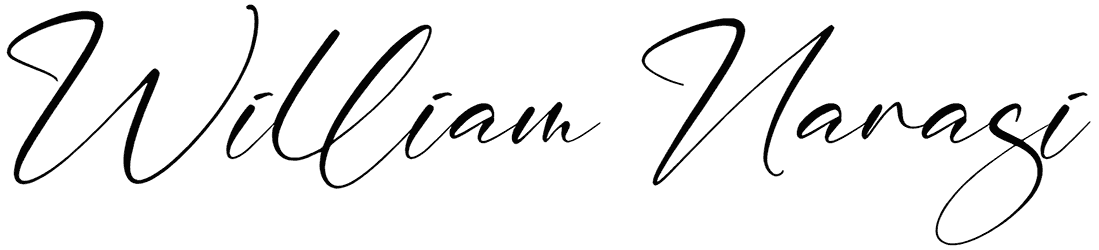
William Narasi Font
Many of the William Narasi have glamorous curls that are a bit unreadable, but give it an exciting theme. This certificate font looks a little messy, but it still maintains the order of your writing and gives it a poetic look.
So, writing a poem in a book to give as a gift or inviting your loved ones to your party is ideal. If you’re looking for a font that will endear you to your audience, say hello to William Narasi.